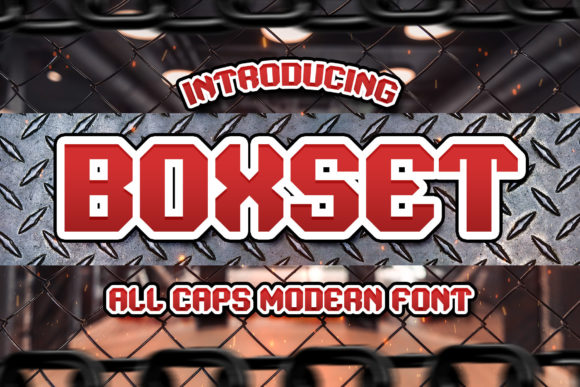
Introducing Boxset - The Bold and Captivating Display Font!
Step into the world of visual brilliance with Boxset, a font that exudes boldness, confidence, and a touch of trendy flair. Crafted by the ingenious minds at Drizy Studio, Boxset is not just a font; it's an artistic statement that transforms your designs into masterpieces.
With its all-caps design, Boxset commands attention like a modern-day symphony. Each letter is a work of art, meticulously crafted to create a visually striking impact. It's the perfect font for those who want their designs to make a statement and leave a lasting impression.
Whether you're a creative professional, a design enthusiast, or simply someone who appreciates the beauty of typography, Boxset is the perfect font for you. Its versatility knows no bounds, making it ideal for crafting logos, headlines, posters, invitations, social media posts, and countless other projects.
Imagine using Boxset to create eye-catching branding materials that leave a lasting impression on your customers. Its bold lines and commanding presence will make your brand stand out from the crowd, ensuring that your message is seen and remembered.
Envision using Boxset to design stunning digital invitations for your special events. Its trendy style and captivating aesthetics will set the tone for a memorable occasion, leaving your guests excited and eager to attend.
Picture yourself crafting personalized greeting cards with Boxset. Each letter will be a heartfelt expression of your thoughts and emotions, adding a touch of elegance and sincerity to your messages.
Boxset is more than just a font; it's a tool for creative expression and communication. It's the perfect choice for those who want to make a bold statement, leave a lasting impression, and create designs that truly captivate the senses. Embrace the power of Boxset and let your creativity soar!